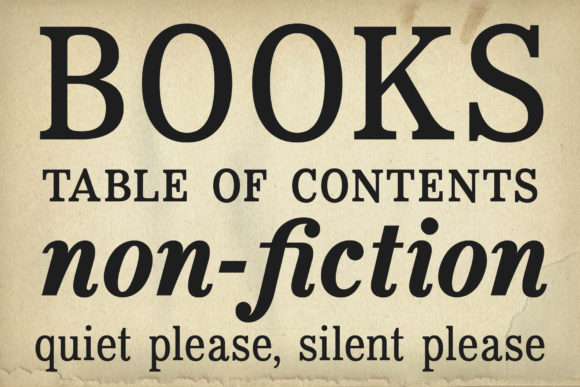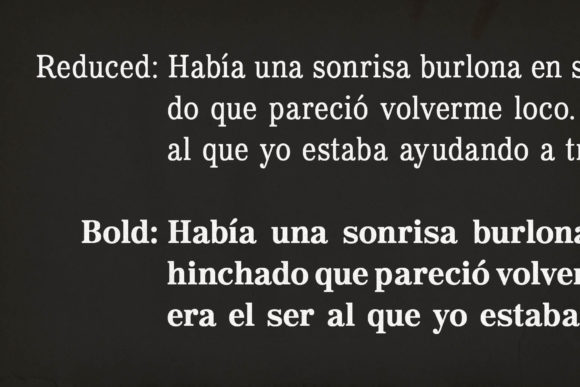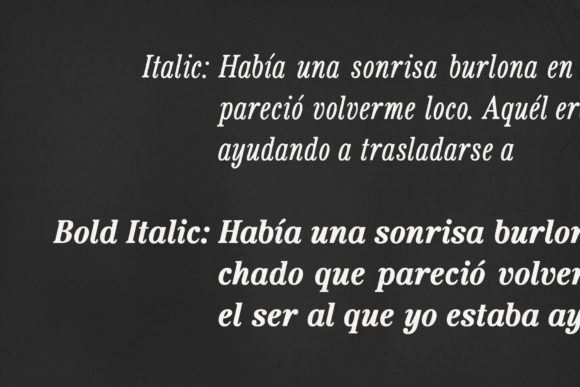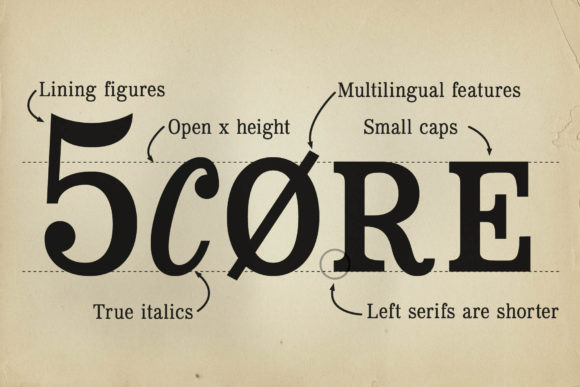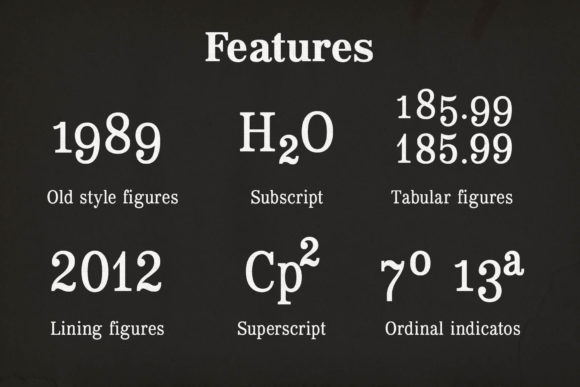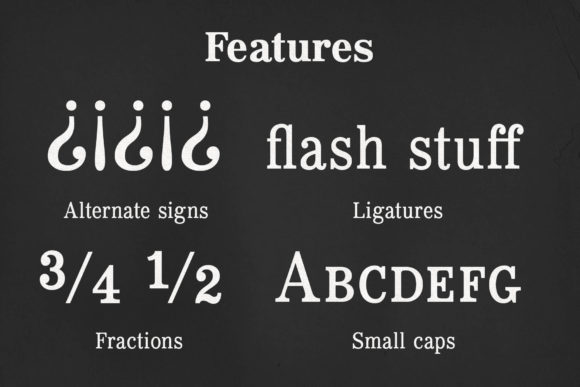
Introducing Bookseller CP Reduced Font: Elevate Your Typography with a Timeless Serif Font
Are you a designer or craftsperson looking for a font that exudes a sense of nostalgia and sophistication? Look no further than the Bookseller CP Reduced Font. This serif font has been optically adjusted for text at smaller sizes, giving it an old book feeling that’s perfect for a variety of design applications. In this article, we’ll explore the features and benefits of the Bookseller CP Reduced Font and how it can elevate your typography.
The Characteristics of Bookseller CP Reduced Font
The Bookseller CP Reduced Font is a carefully crafted serif font that’s designed to evoke the feeling of classic books and manuscripts. Its narrow look allows you to save space and fit more text into a smaller area, making it ideal for books, magazines, and editorial design. The font features a range of characters, including:
- Small caps: perfect for headings and titles
- Old-style figures: add a touch of elegance to your text
- Lining figures: ideal for tables and numerical data
- Fractions: easily create mathematical expressions
- Basic Cyrillic alphabet: expand your design possibilities
The solid shapes of the Bookseller CP Reduced Font make it perfect for small text and captions, ensuring that your text remains legible even at smaller sizes.
The Bookseller CP Reduced Font offers a range of benefits for designers and crafters, including:
- Elegant and sophisticated look: add a touch of classic style to your designs
- Space-saving design: fit more text into a smaller area without sacrificing legibility
- Versatility: perfect for a range of design applications, from books and magazines to editorial design and small text
- Easy to read: solid shapes and carefully crafted characters ensure legibility even at smaller sizes
Using Bookseller CP Reduced Font in Your Designs
The Bookseller CP Reduced Font is easy to use and can be incorporated into a range of design applications. Here are a few ideas to get you started:
- Book design: use the Bookseller CP Reduced Font for body text or headings to create a classic and sophisticated look
- Magazine design: add a touch of elegance to your magazine with the Bookseller CP Reduced Font
- Editorial design: use the Bookseller CP Reduced Font for articles, captions, and other text elements
- Crafting: add a personal touch to your crafting projects with the Bookseller CP Reduced Font
The Bookseller CP Reduced Font is a timeless serif font that’s perfect for designers and crafters looking to add a touch of elegance and sophistication to their designs. With its narrow look, range of characters, and solid shapes, this font is ideal for a range of design applications. Whether you’re working on a book, magazine, editorial design, or crafting project, the Bookseller CP Reduced Font is sure to elevate your typography and add a touch of classic style.